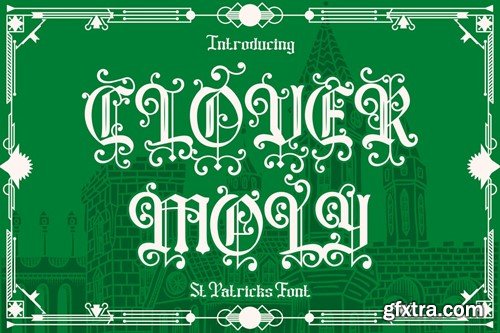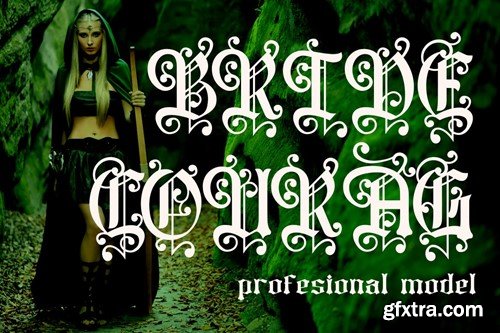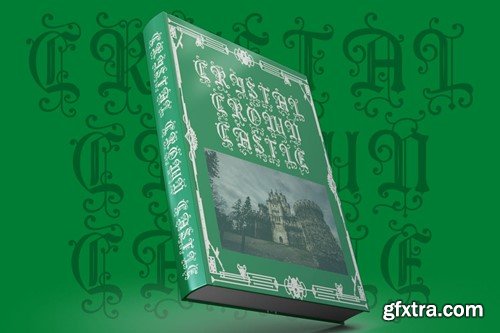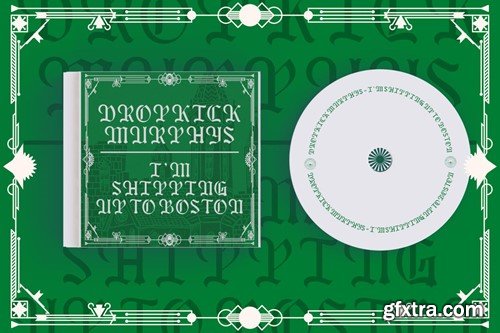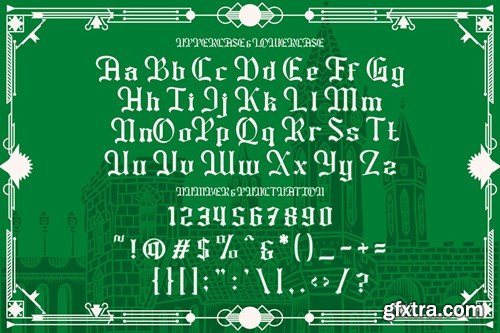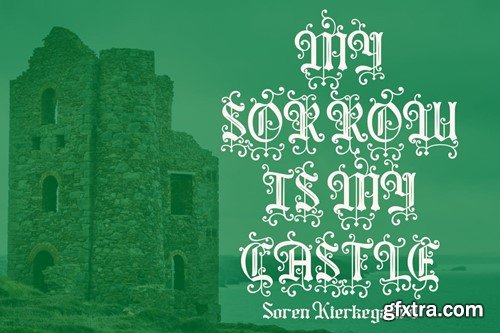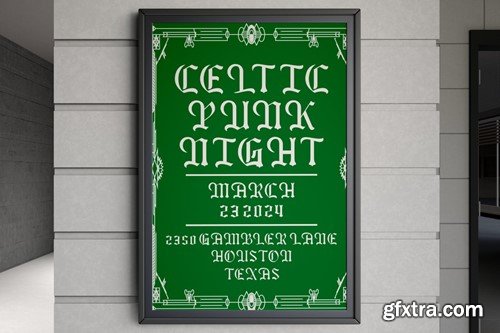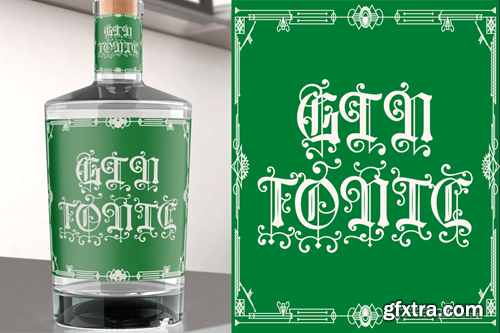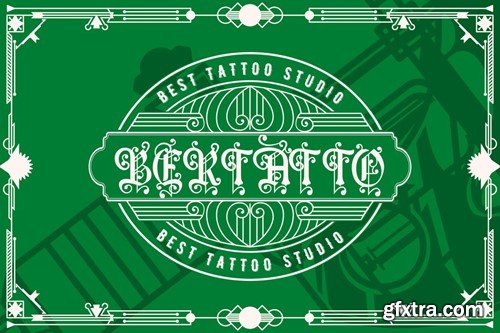
Clover Moly - St Patricks Font Introducing Clover Moly - St Patricks Font, a digital font that embodies the spirit of St. Patrick’s Day with its charming and whimsical design. This font is a celebration of creativity, perfect for those who wish to infuse their projects with the luck of the Irish. With its unique blend of traditional Celtic flair and modern typographic style, Clover Moly is ideal for a wide range of applications, from logos and branding to crafting and invitations. Each character in the Clover Moly font is crafted with care, ensuring that your designs will stand out with elegance and style. Whether you’re creating festive packaging, eye-catching posters, or heartfelt greeting cards, this font adds a personal touch that is both professional and playful. It’s also suitable for children’s books, magazines, and any other design that could benefit from a font with character and charm. In Package : Feature : Note : The preview mock-up, element, shadow, image or graphic stock is not included in the download file. It’s only for presentation purpose. Thank you